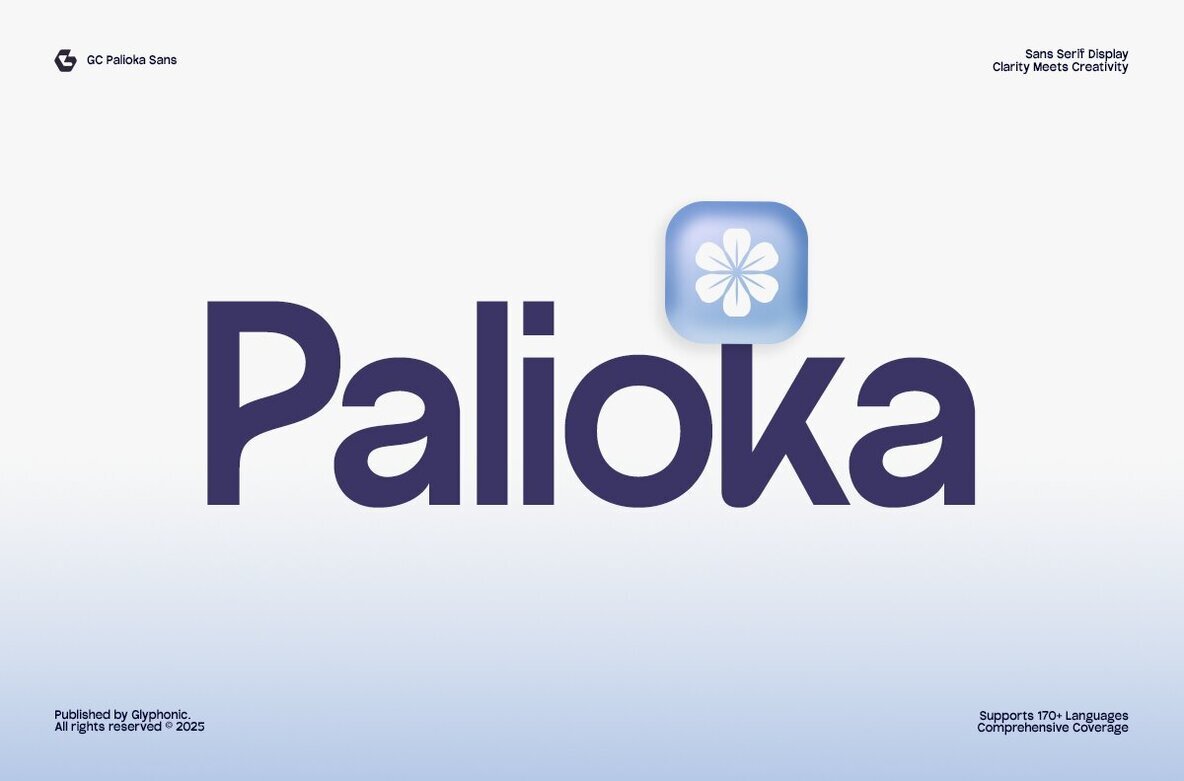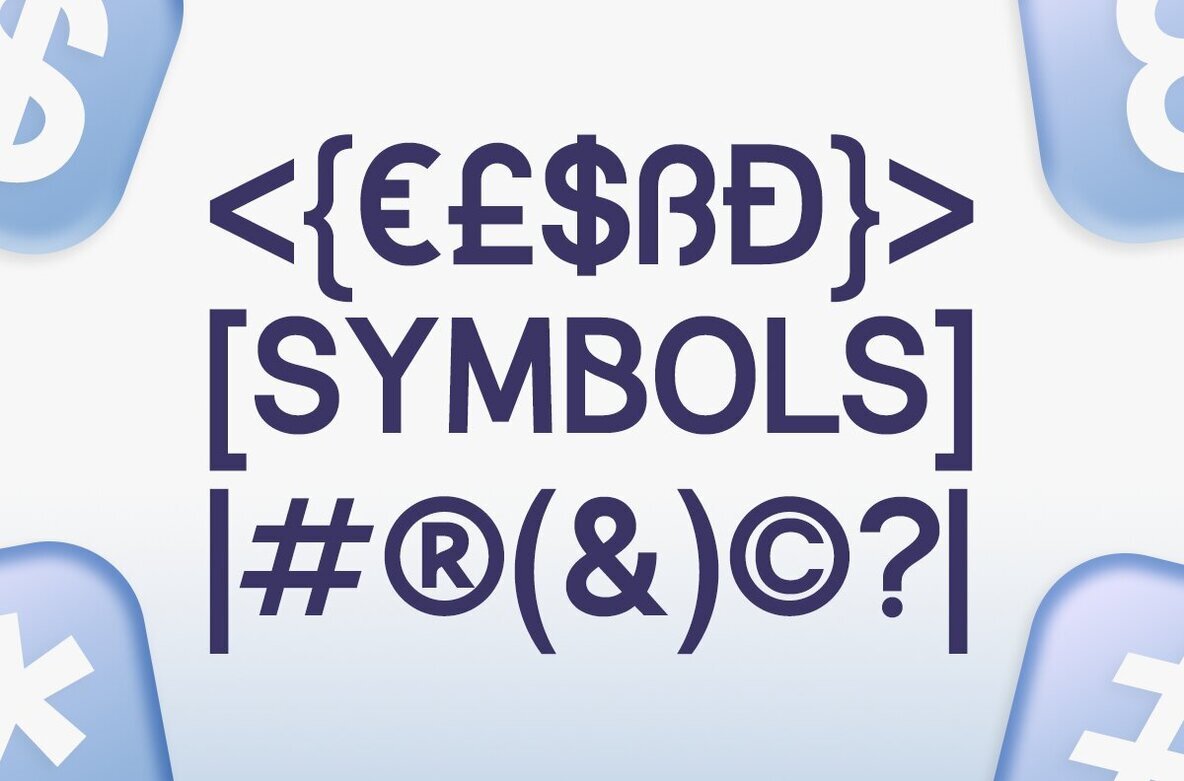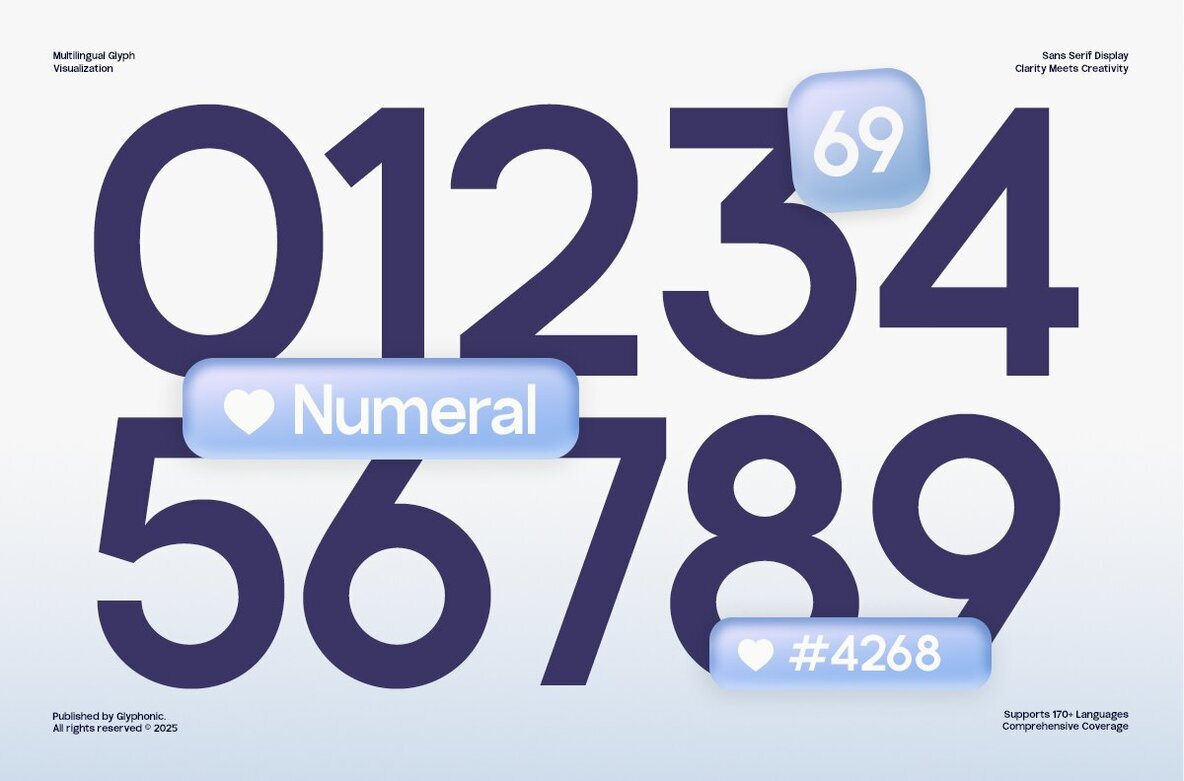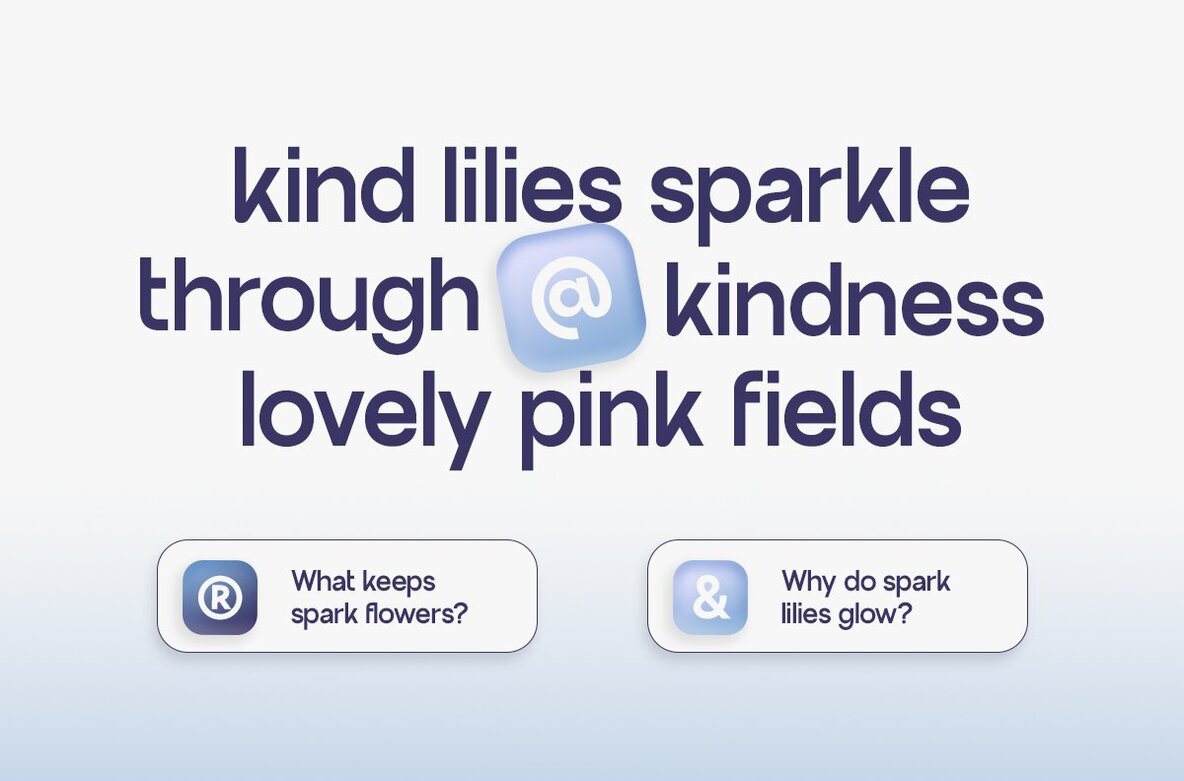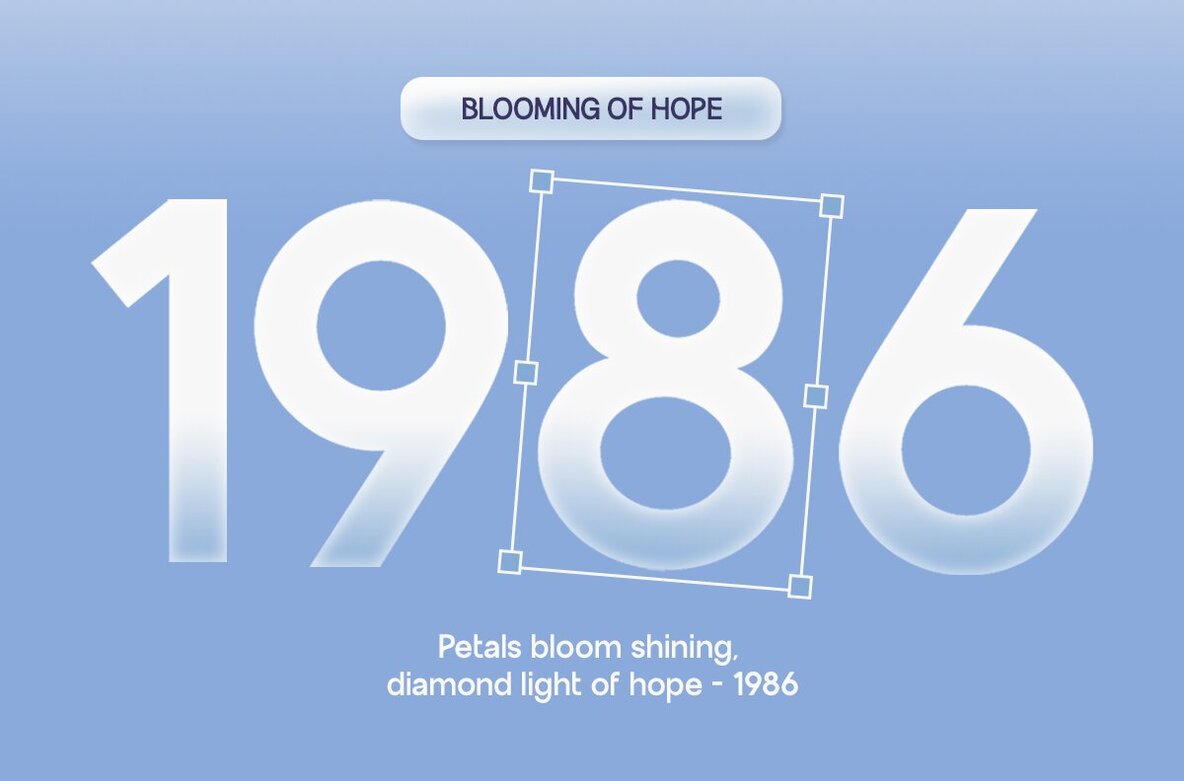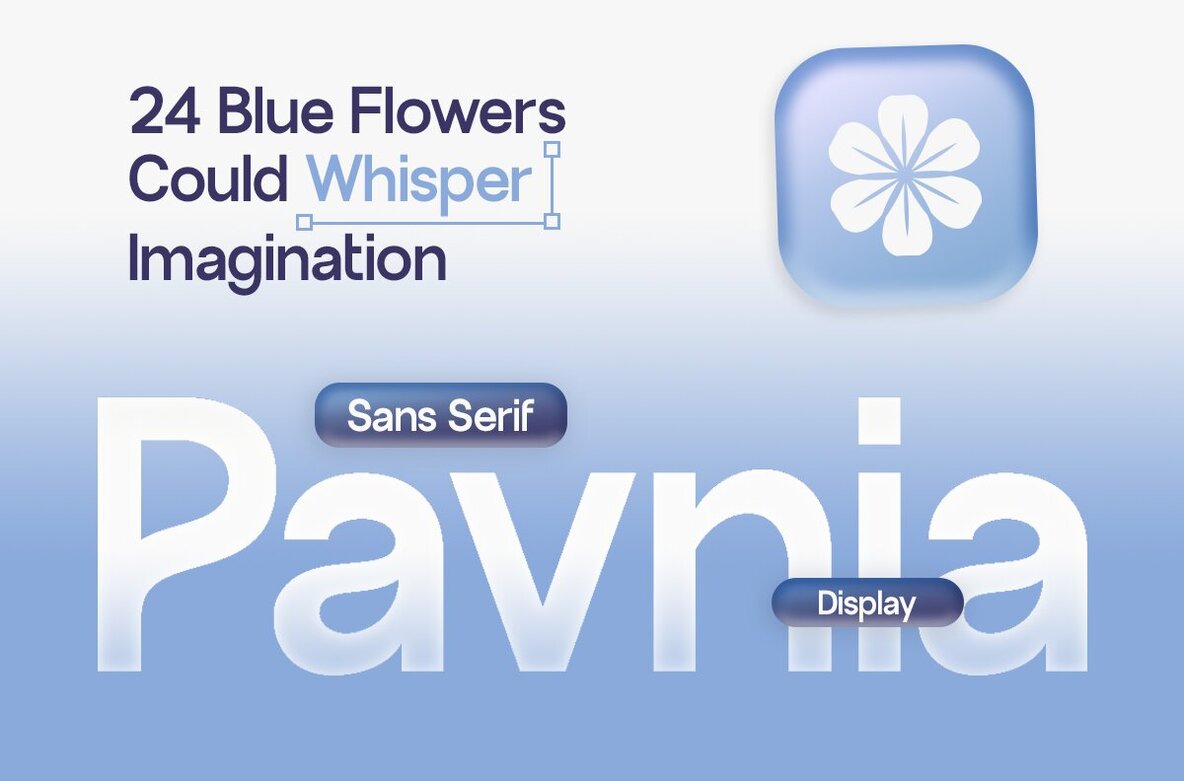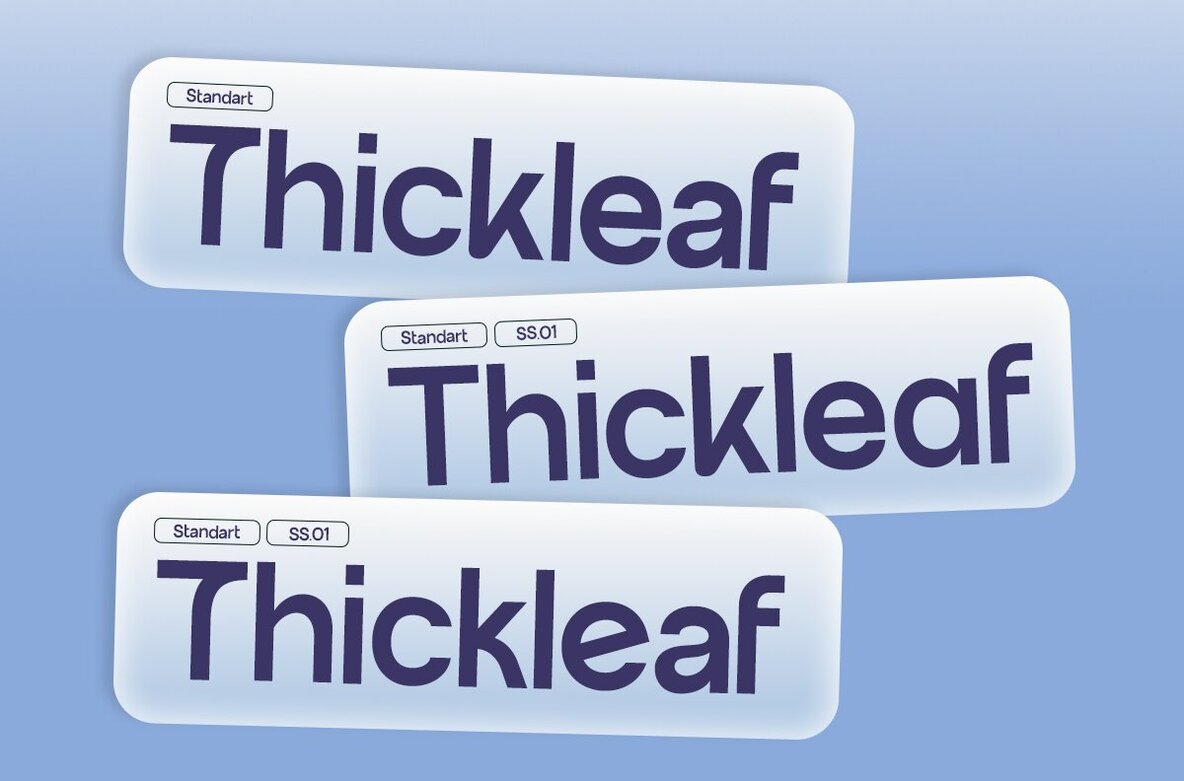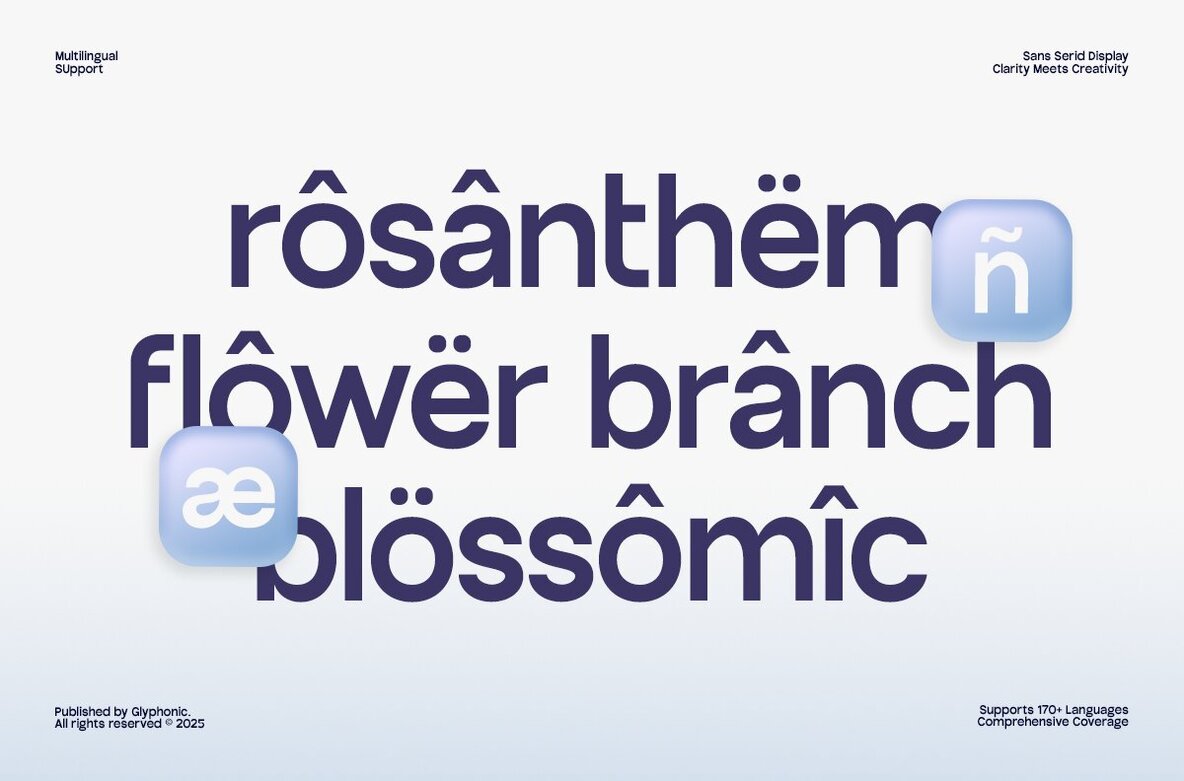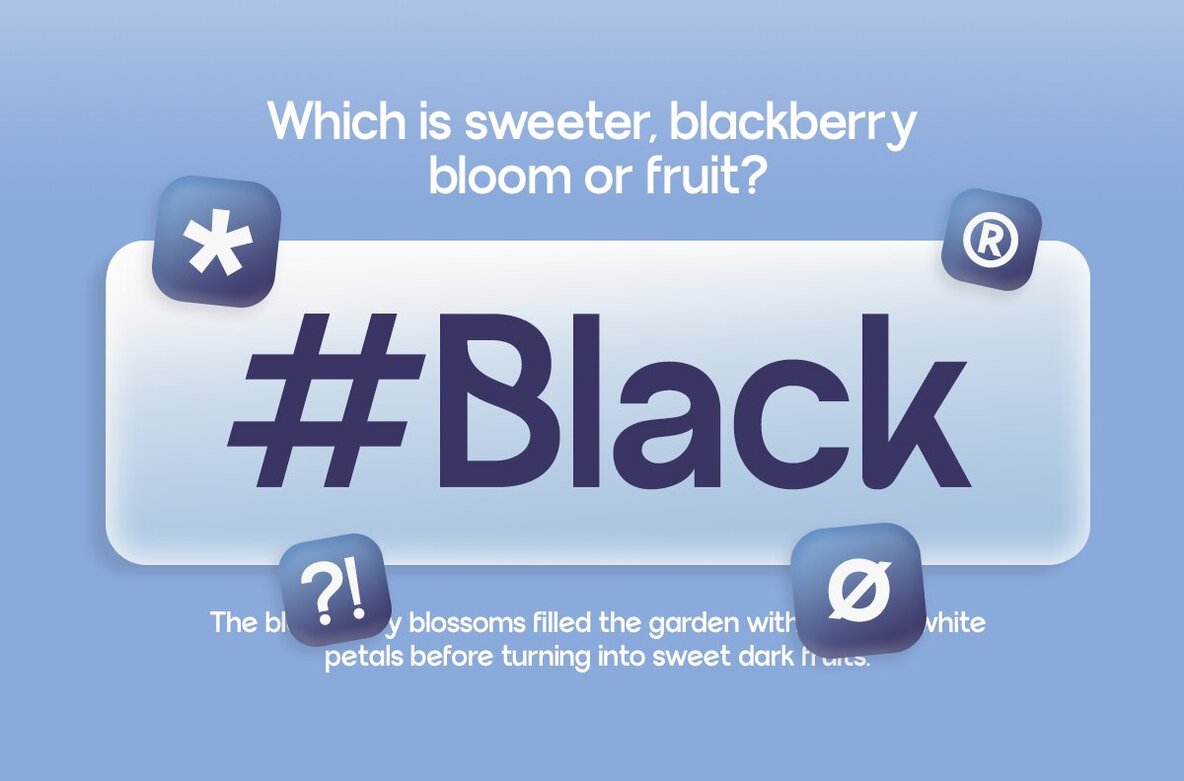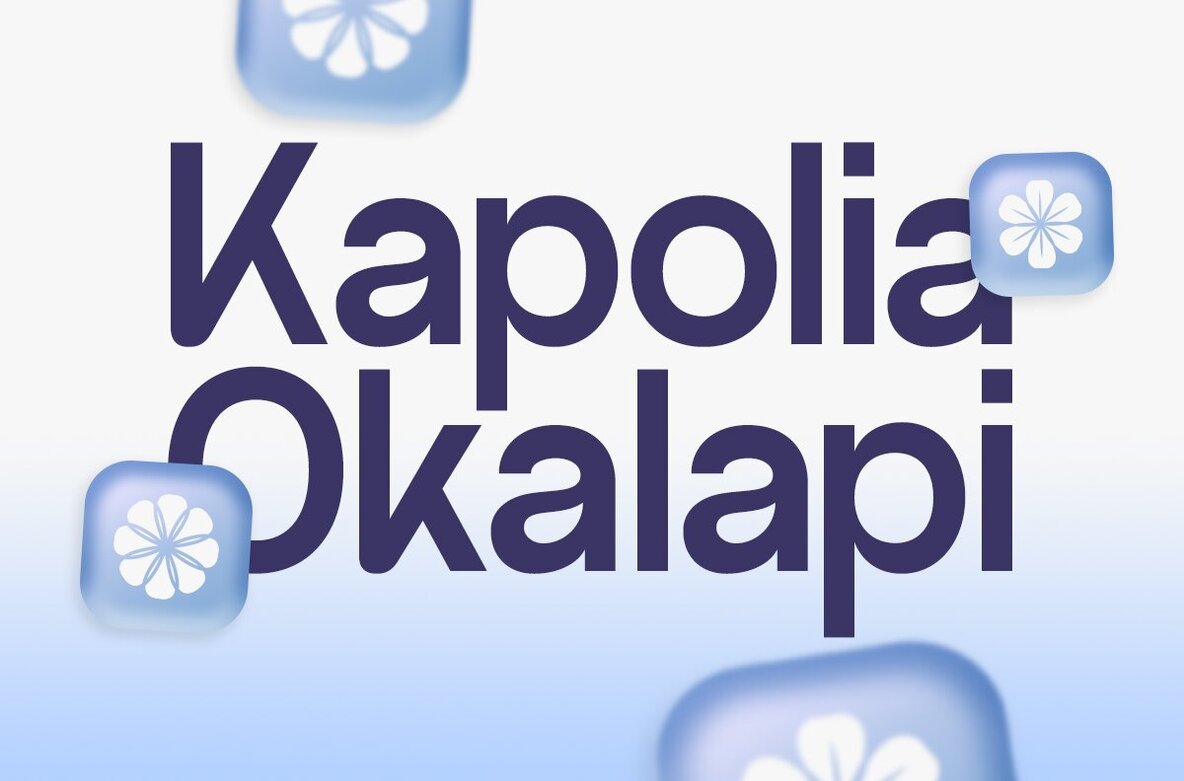
GC Palioka Font
GC Palioka Regular
GC Palioka is an elegant sans serif font that seamlessly merges modern simplicity with a refined character. Drawing on clean geometry infused with subtle softness, it embodies a contemporary aesthetic that is both versatile and approachable. Ideal for branding, editorial layouts, digital interfaces, and creative displays, GC Palioka subtly enhances clarity and sophistication in any project. With its extended forms, smooth curves, and assured presence, GC Palioka offers a professional yet expressive sans serif option. The typeface excels in various applications, from bold headlines to sleek packaging and minimalistic visuals, assuring your design stands out with understated modern elegance.GC Palioka: A Harmonious Blend of Modern Simplicity